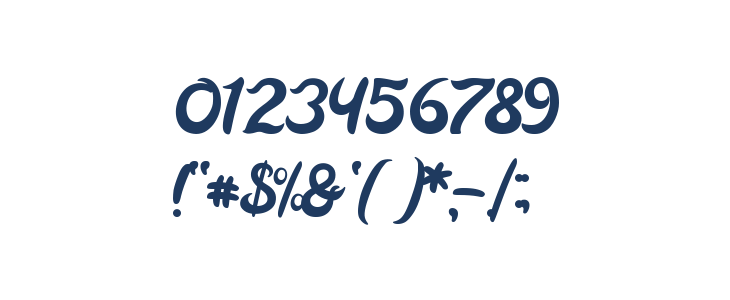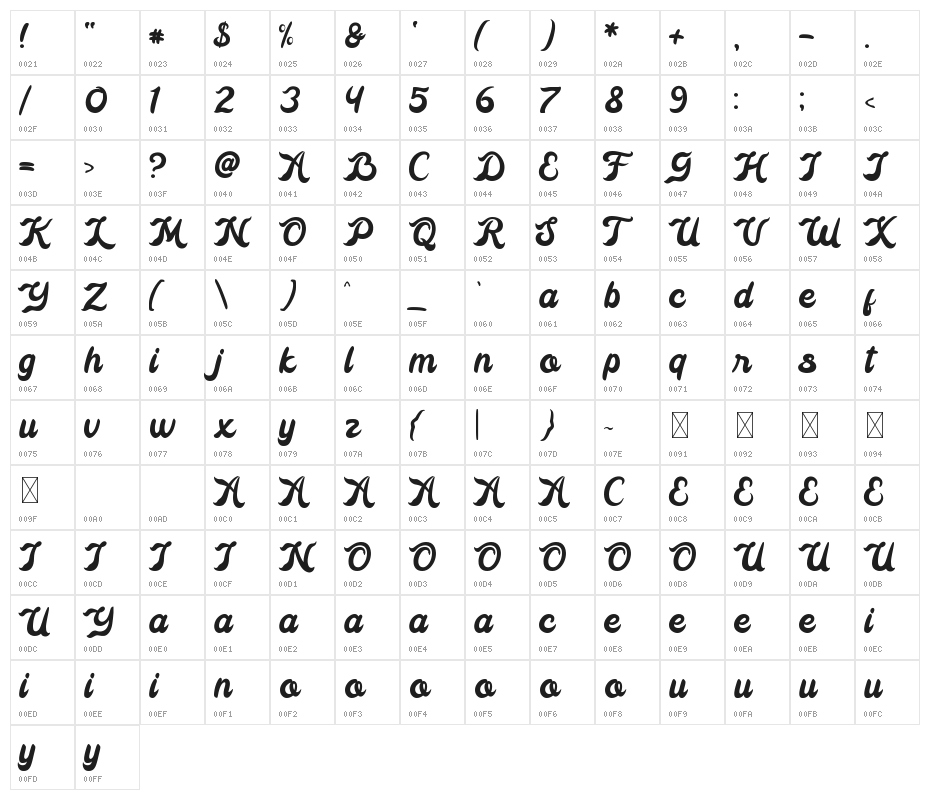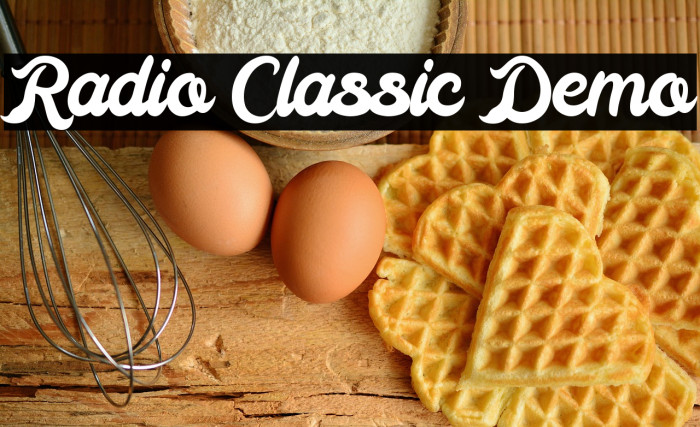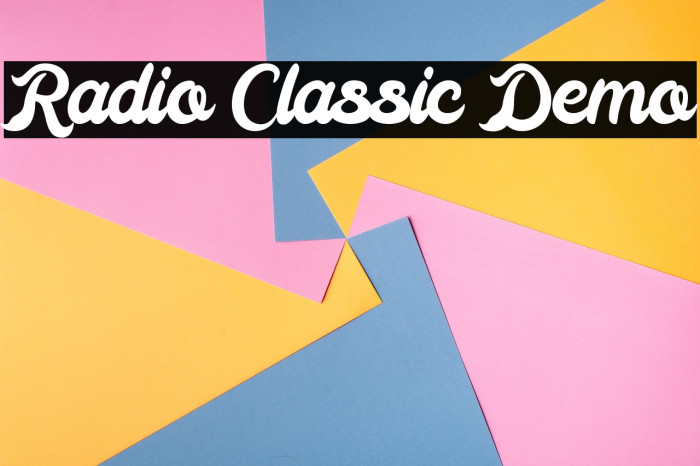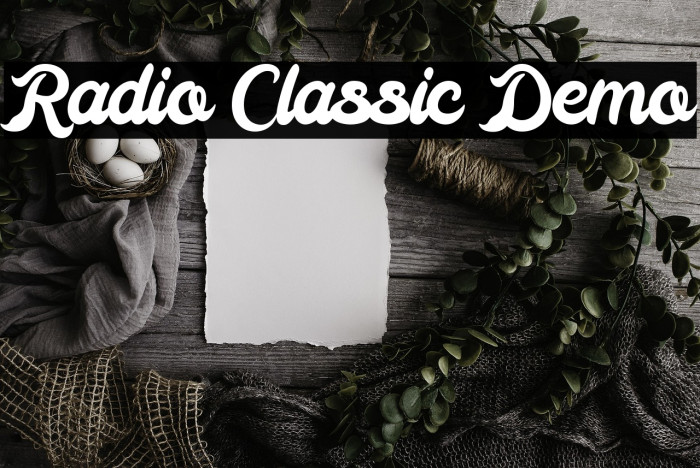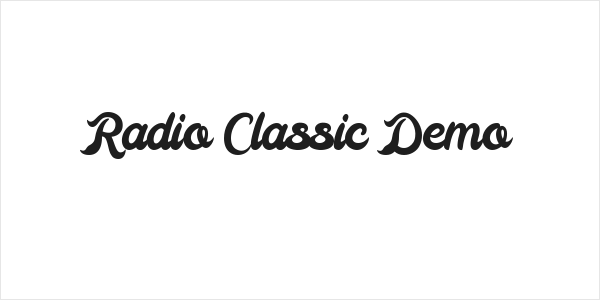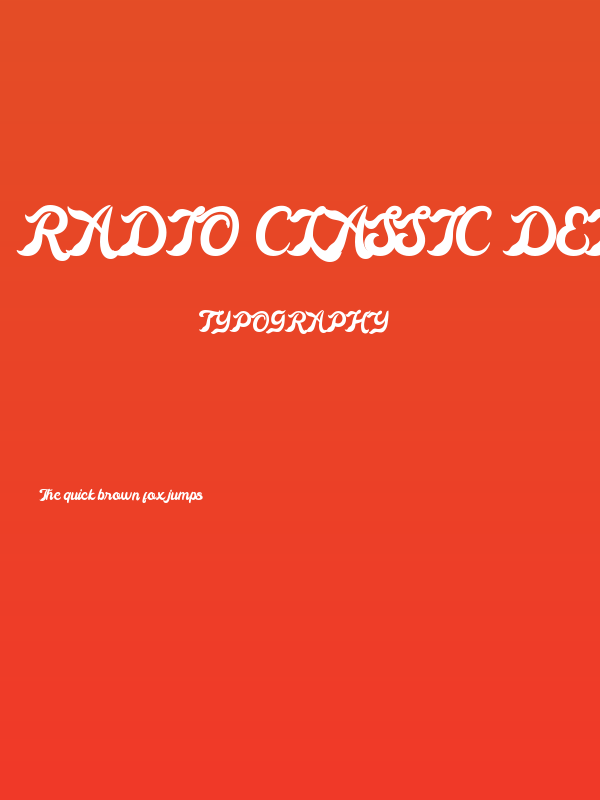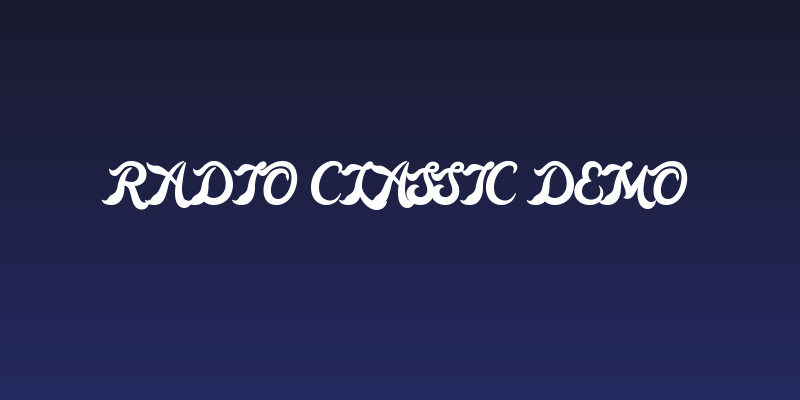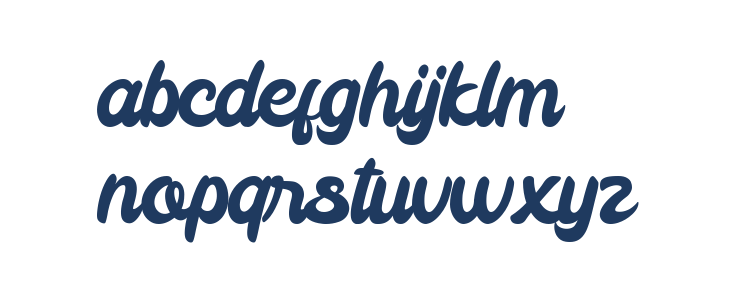
Radio Classic Demo Font
Radio Classic Demo Description
This font features a bold, flowing script style that combines elegance with a touch of vintage flair. The uppercase letters are characterized by their sweeping curves and intricate loops, giving them a dynamic and lively appearance. The lowercase letters maintain a consistent flow, with rounded edges and a slightly slanted orientation, enhancing the script's fluidity. Numbers and special characters are designed to match the overall aesthetic, ensuring a cohesive look across all text elements. The font's bold weight and high contrast between thick and thin strokes make it highly legible while retaining its decorative appeal.